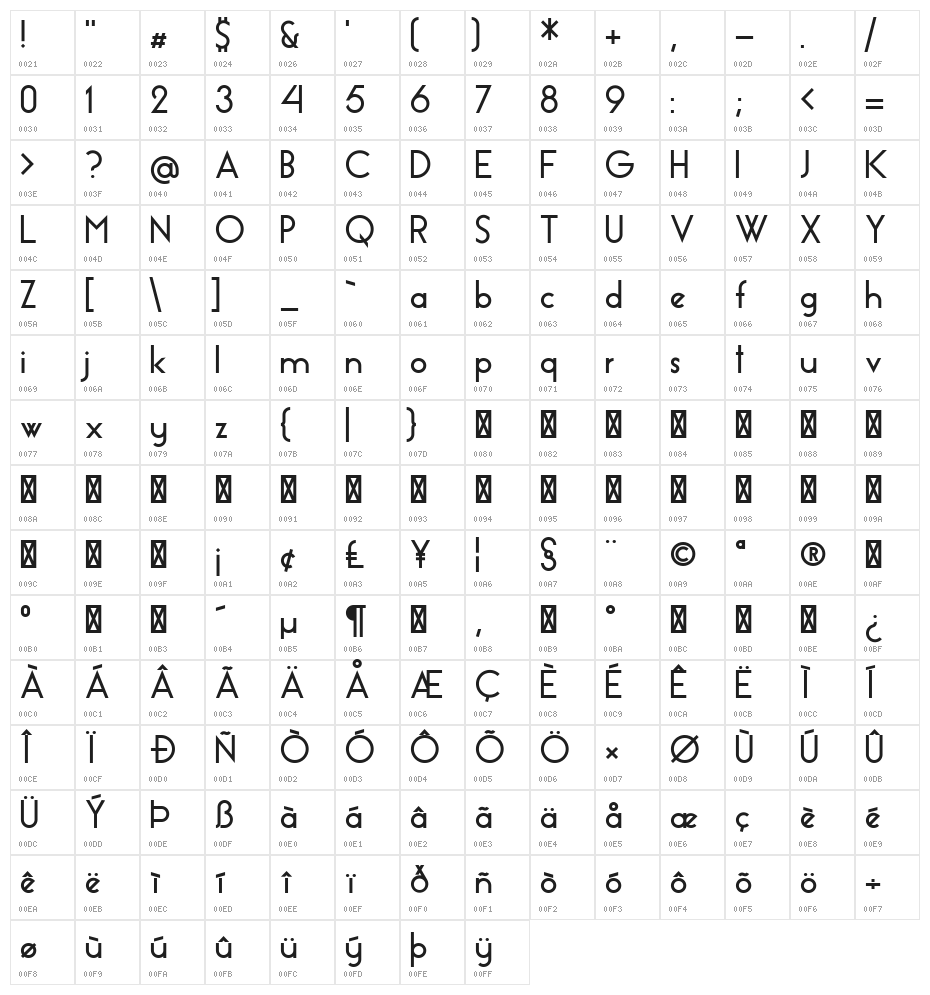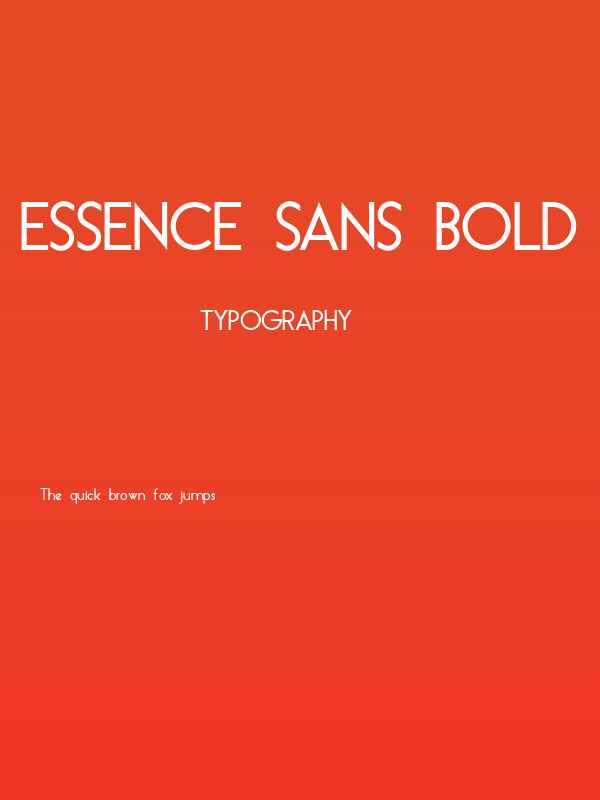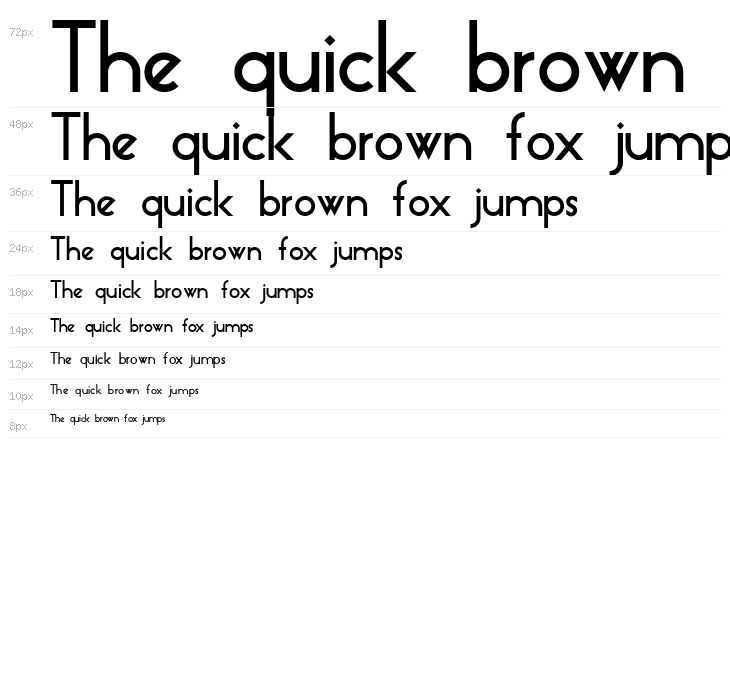
Essence Sans Bold Font
Essence Sans Bold Description
This font exhibits a clean and modern sans-serif style, characterized by its bold and uniform stroke weight. The uppercase letters are tall and slightly condensed, providing a sleek and professional appearance. The lowercase letters maintain a consistent height, contributing to a harmonious and balanced look. The numerals are clear and legible, with a geometric influence that enhances readability. Special characters are well-defined, adding versatility to the font's usage. Overall, this font's simplicity and clarity make it suitable for a wide range of applications, from digital interfaces to print media.
| Use Case | Headlines, Logos, Digital Interfaces |
| Proposed Projects | Ideal for branding, advertising, web design, and editorial layouts. |